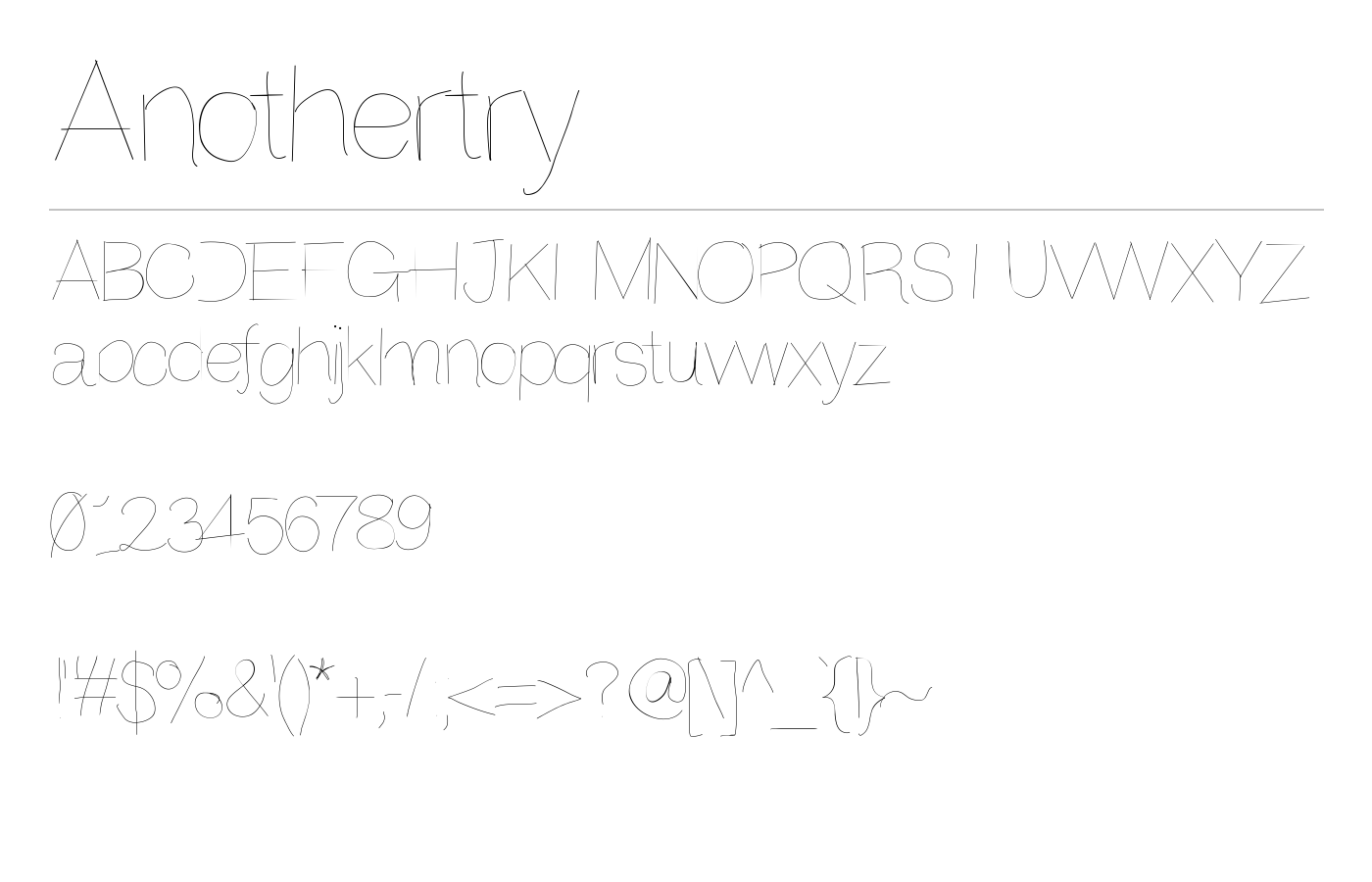
Anothertry is a delicate, ultra-light sans serif font with a playful and hand-drawn feel, featuring very thin strokes and tall, narrow letterforms. Its quirky, irregular shapes give it a whimsical yet modern personality, making it ideal for creative projects, informal branding, and artistic headlines where a unique, airy style is desired. This font works best in large sizes where its fine lines and distinctive character can be fully appreciated.
Anothertry Font
About Anothertry Font